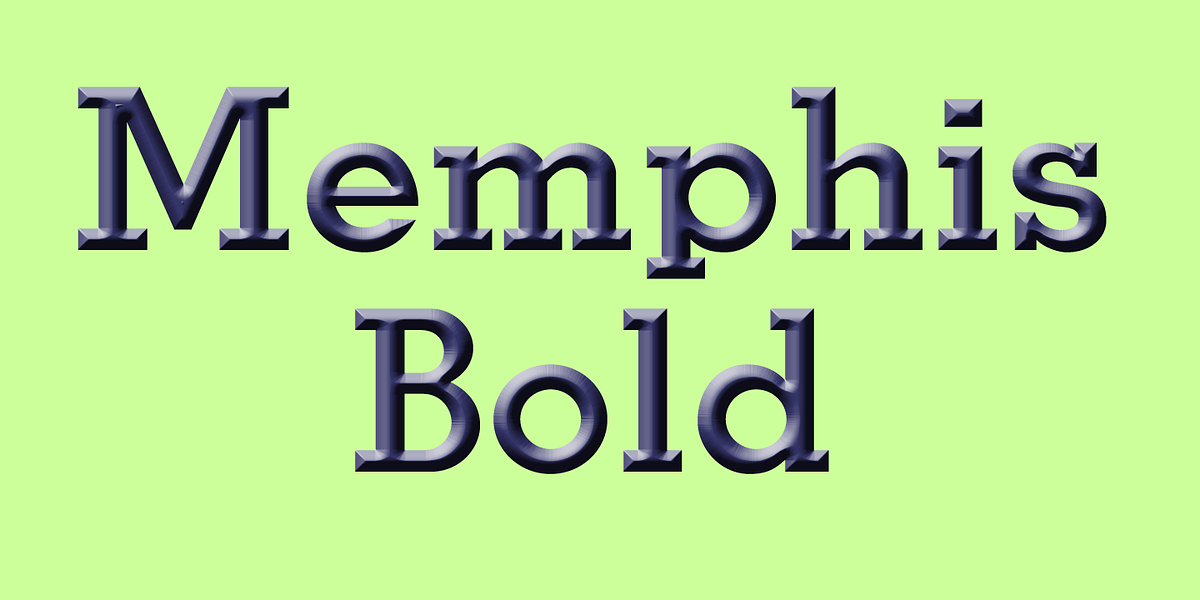
Memphis Bold
This font is a classic display slab serif. It features bold, heavy serifs and a geometric design, making it suitable for headlines, branding, and posters.